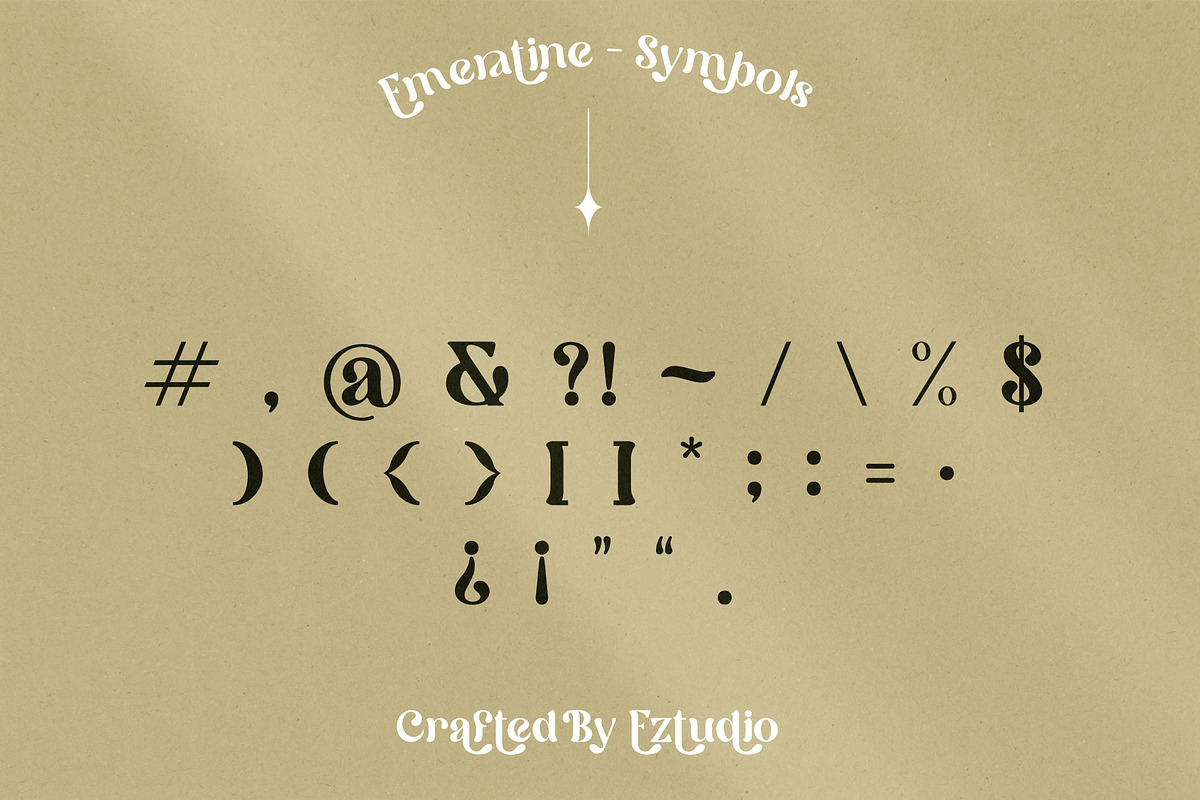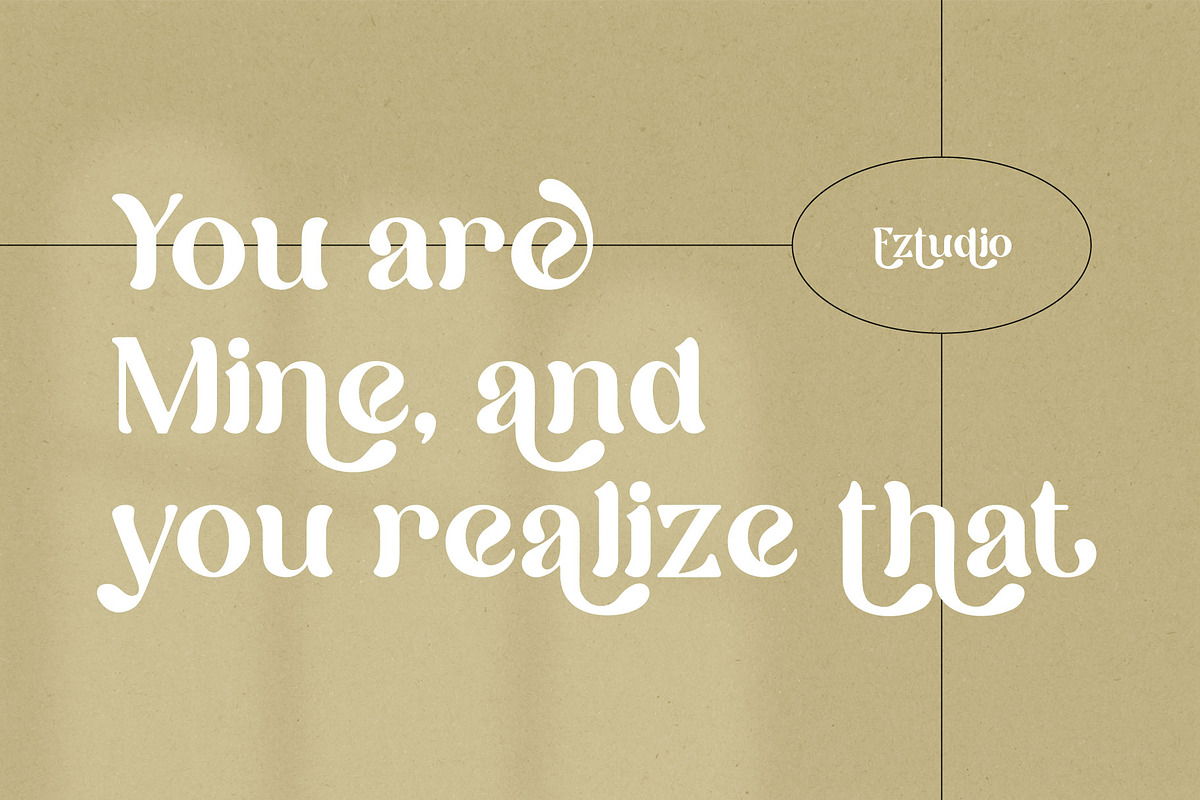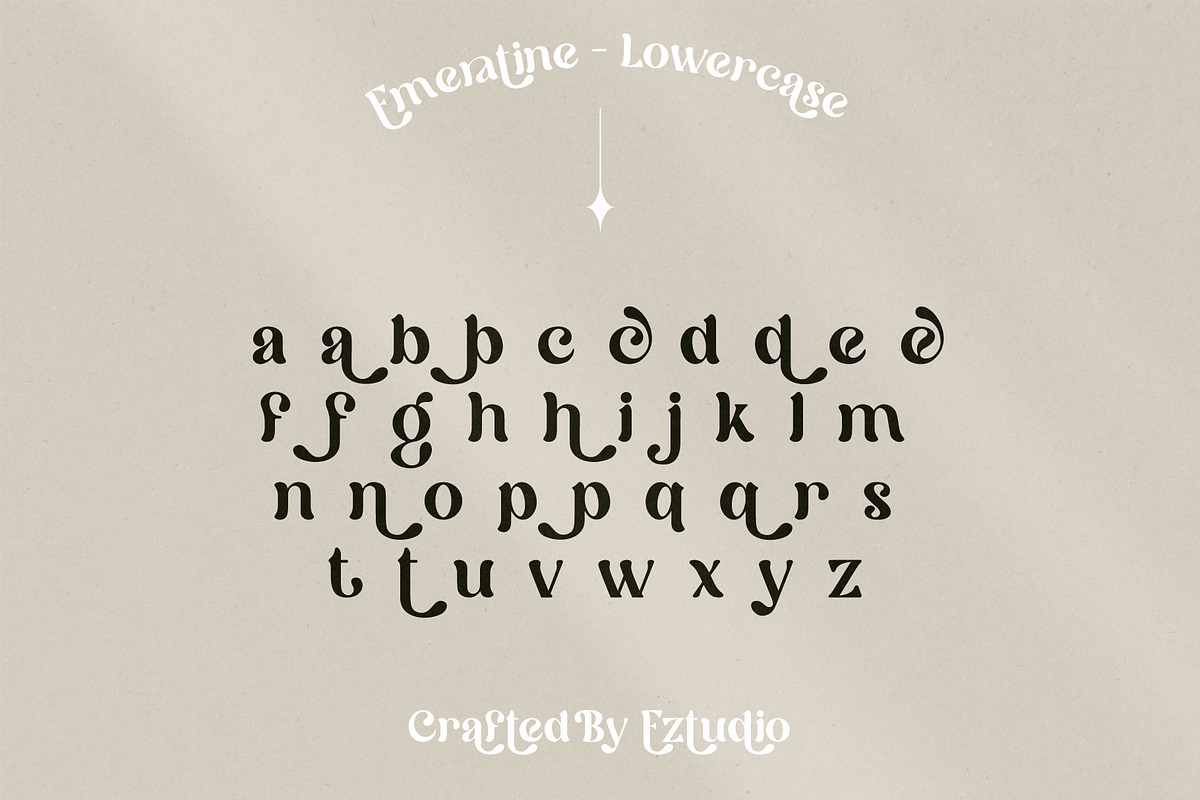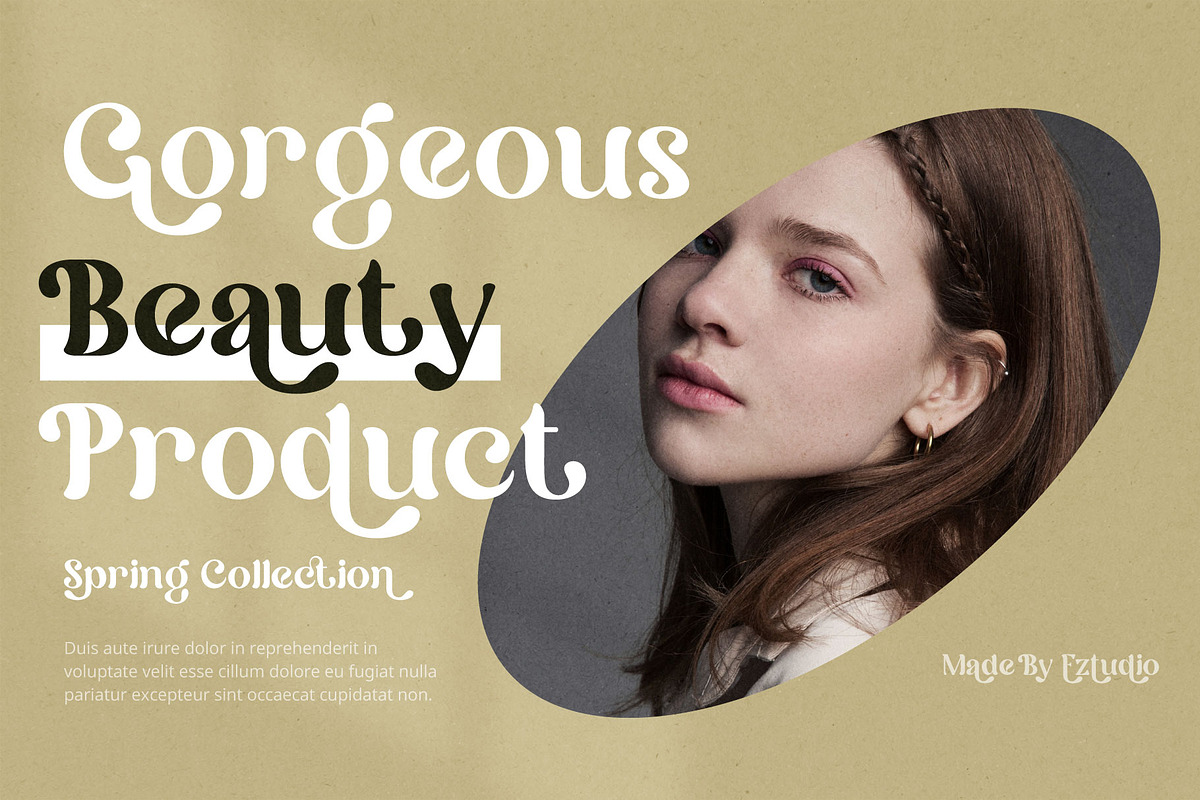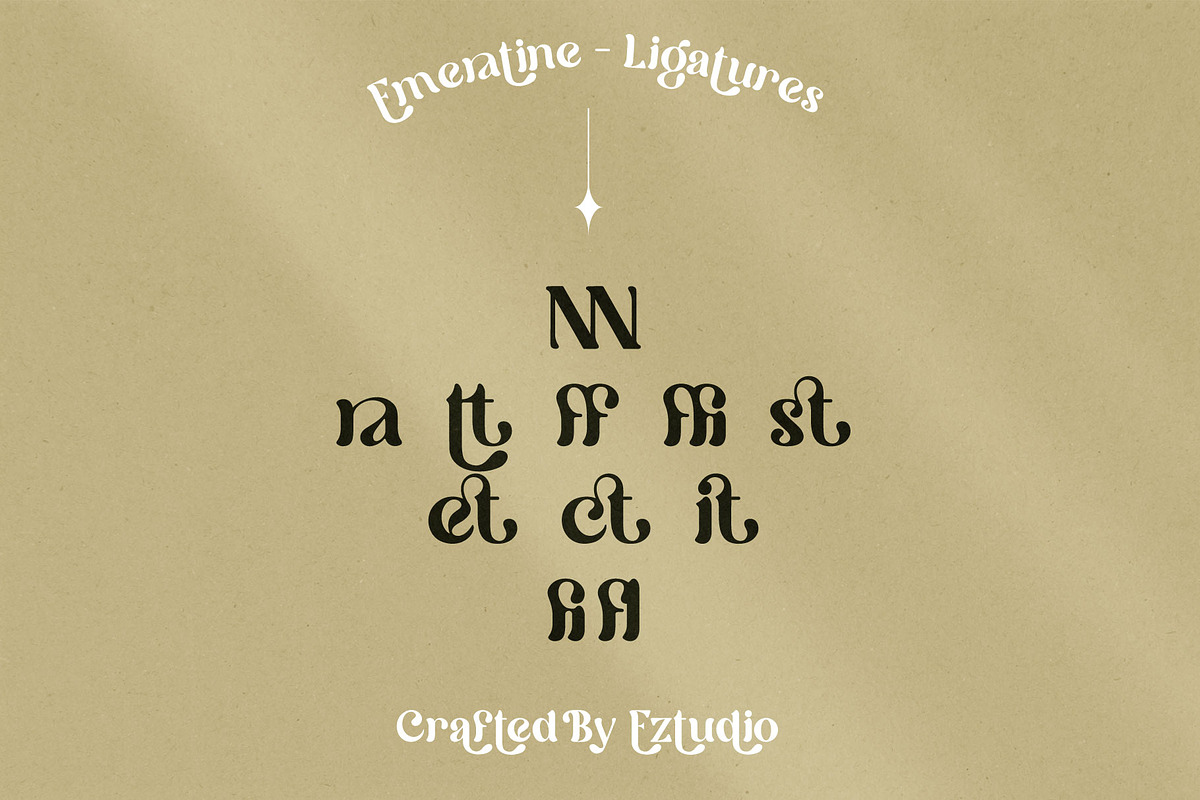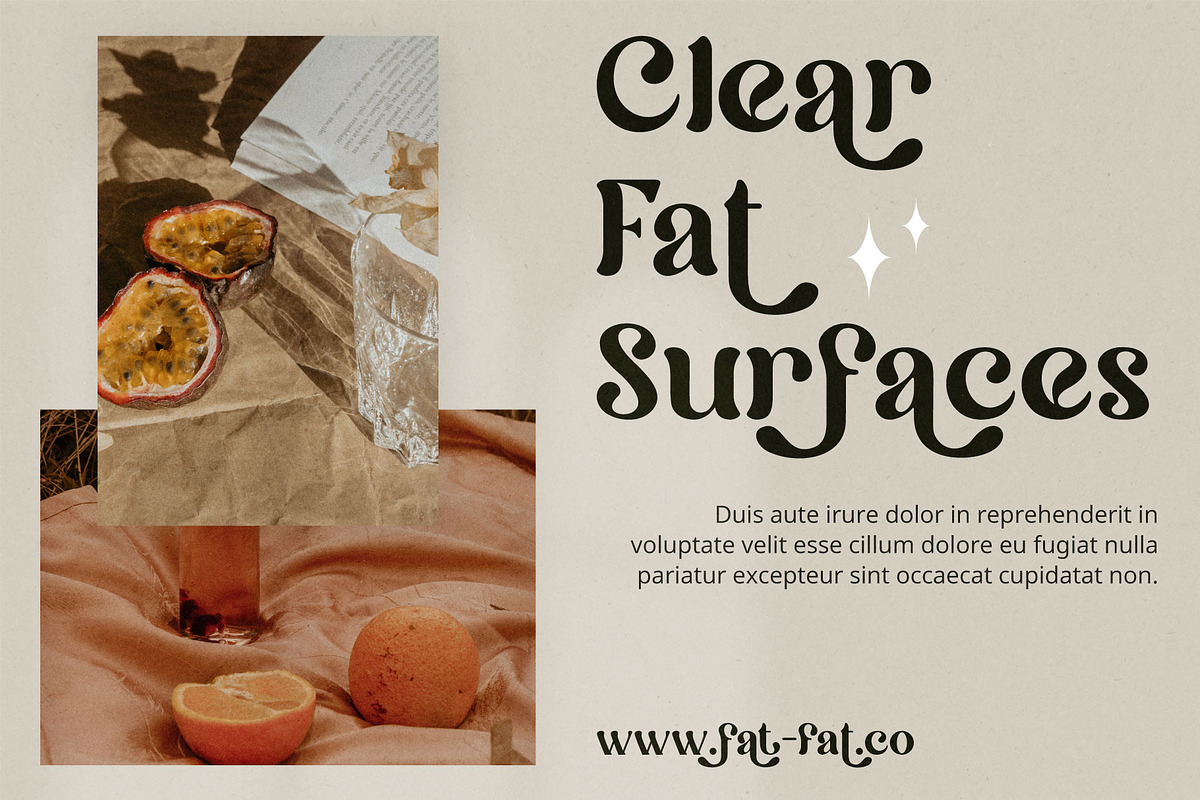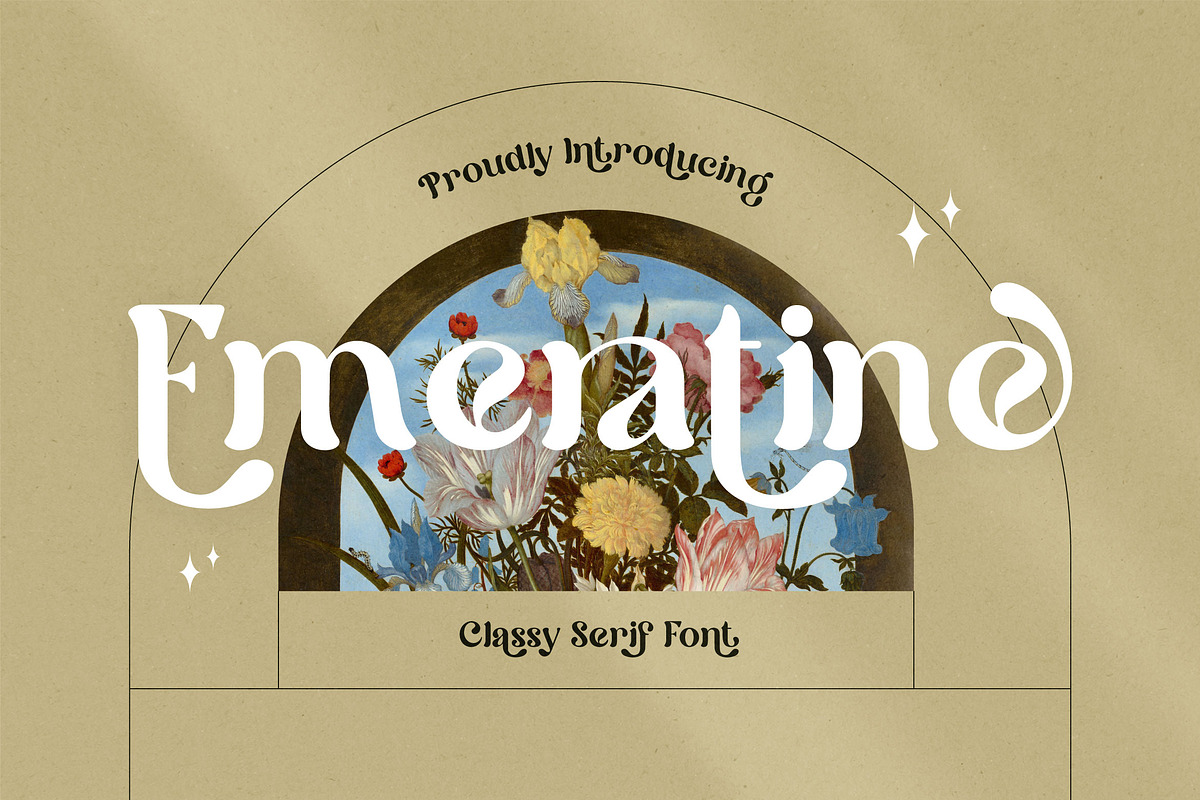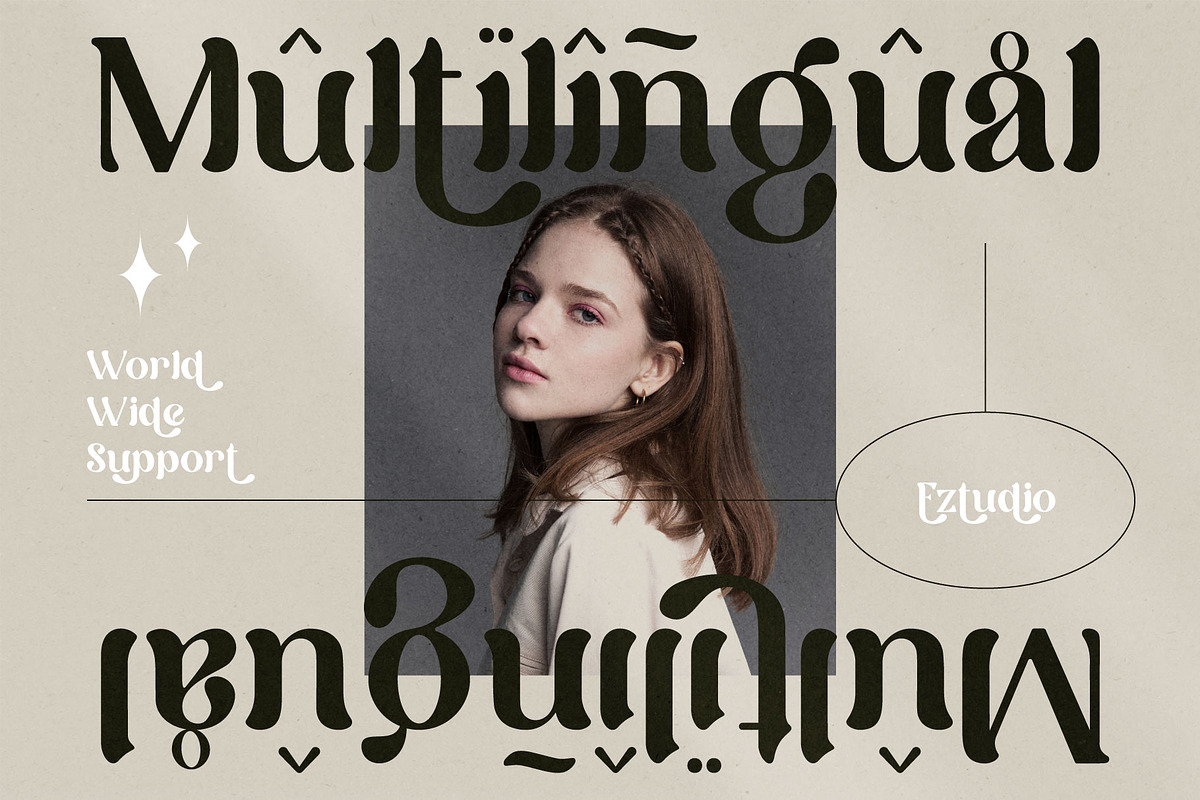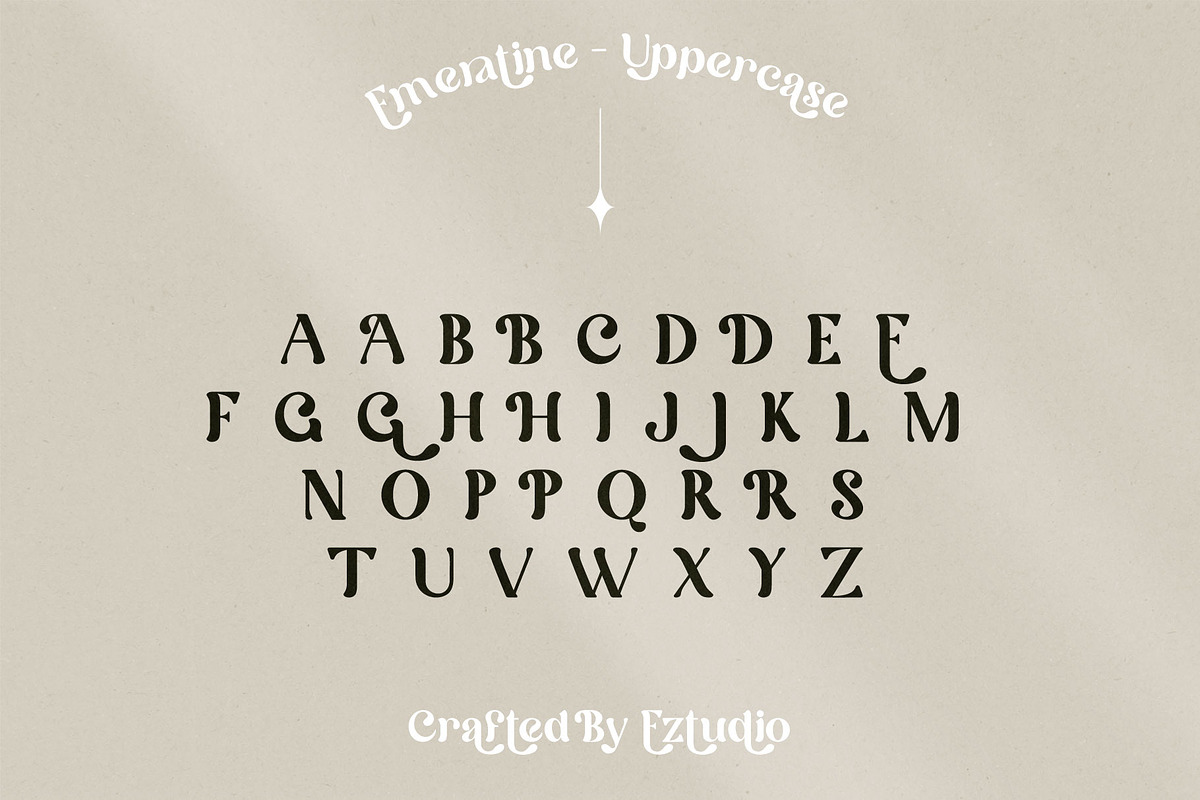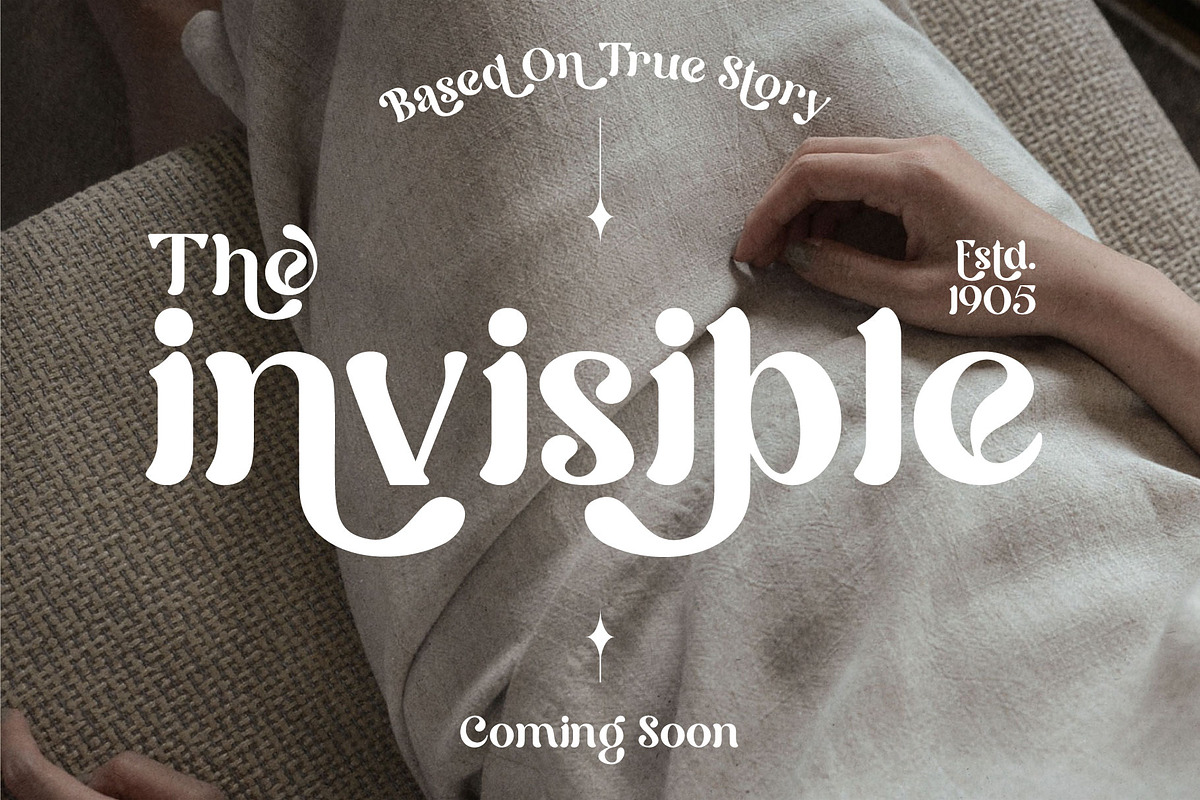
Emeratine - Classy and Modern Serif
Emeratine is a classy and modern serif font. No matter the subject of your project, this trendy font will be an incredible asset to your fonts’ library, as it has the potential to elevate any creation.
The Emeratine font includes:
- Uppercase Letters
- Lowercase Letters
- Special Characters
- Multilingual Glyphs